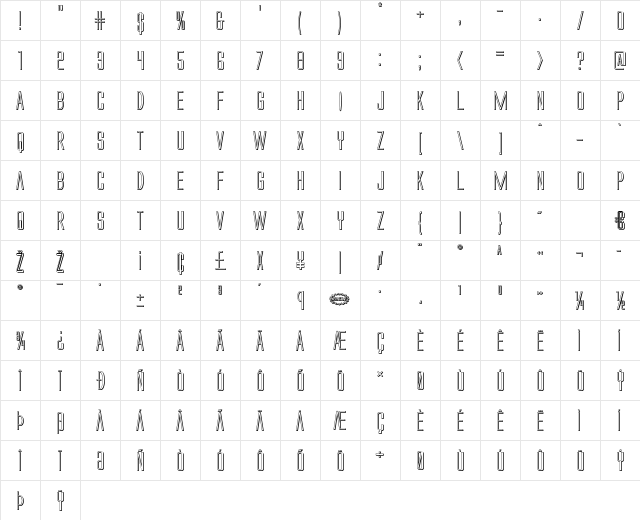
Alien League II 3D Regular
Complete Alien League II 3D Regular glyph index. Displaying only characters natively supported by Alien League II 3D Regular font.
Design Context for Alien League II 3D
Alien League II 3D is a composed and adaptable typeface that performs quietly and consistently across a wide range of design contexts.
Pro Tip: Use Alien League II 3D in both headline and body roles to test its range before committing to a single application.